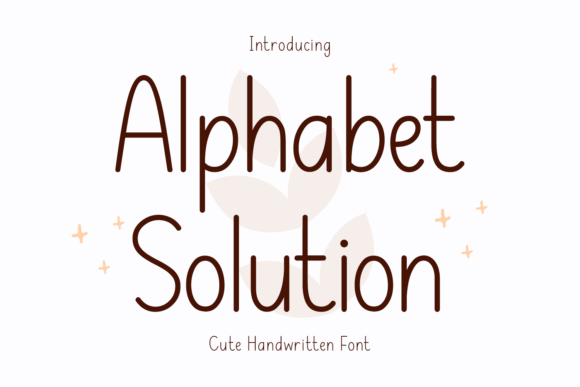
The Perfect Font for a Personal Touch
Have you ever stared at a blank sheet of paper, searching for the perfect font to bring your creative vision to life? You know, that moment when the words just aren’t flowing, and you need a spark to ignite your imagination? That’s exactly when I found myself in need of a solution, and that’s where the Alphabet Solution Font came into play.
This charming handwritten font is designed to add a personal and approachable touch to any project. With its clean lines and rounded letterforms, it’s the perfect choice for crafts, digital design, presentations, and even making greeting cards. The Alphabet Solution Font has the ability to instantly convey a sense of warmth and friendliness, making it a valuable asset for designers looking to add a touch of personality to their work.
Alphabet Solution Font Key Features
- Font Family: Alphabet Solution Font offers a unique combination of modern and classic letterforms, making it suitable for various design applications.
- Character Set: The font includes a comprehensive character set, including Latin, Cyrillic, and Greek alphabets, as well as punctuation marks and symbols.
- Unique Characteristics: Alphabet Solution Font features a distinctive x-height, making it easy to read in both digital and print formats, and a subtle flair at the terminals, adding a touch of elegance to text.
Alphabet Solution Font Review
Overall, I was excited to dive into the Alphabet Solution Font, and while it has some great qualities, it falls short in a few areas. Let’s start with what works well ✨.
- Unique letterforms: The font has some really interesting and creative letterforms that can add a touch of whimsy to a design.
- High legibility: The font is relatively easy to read, even at smaller sizes, which is a must for any font.
- Good for body text: The font works well for body text, especially in longer paragraphs where a more formal font might feel too dense.
Now, let’s talk about the limitations ⚠️:
- Limited stylistic flexibility: While the font has some unique letterforms, it’s not super versatile when it comes to stylistic options. This might make it harder to integrate into a design that needs a lot of customization.
- Not ideal for headings: While the font works well for body text, it’s not the most effective choice for headings. It can feel a bit too playful for titles and headings.
- Not ideal for complex layouts: The font can get a bit cluttered in complex layouts, especially if there are a lot of different line lengths and font sizes.
Overall, I think the Alphabet Solution Font has some great qualities, but it’s not a go-to font for me. It’s a good choice for simple designs or body text, but it might not be the best fit for more complex or high-end designs.
For best results, use the Alphabet Solution Font in combination with other design elements, such as graphics and colors, to create a visually appealing design.
To make the most of the font, experiment with different font sizes, colors, and styles to achieve the desired effect.
The Alphabet Solution Font is suitable for a variety of applications, including:
– Logo design
– Branding materials
– Educational materials
– Infographics
– Brochures and flyers
Alternatives to Alphabet Solution Font
Lato is a modern sans-serif font that is highly legible and suitable for body text. It’s a great alternative for projects that require a clean and minimalist look. Compared to Alphabet Solution Font, Lato has a more rounded and friendly feel, making it ideal for websites and apps that require a welcoming atmosphere.